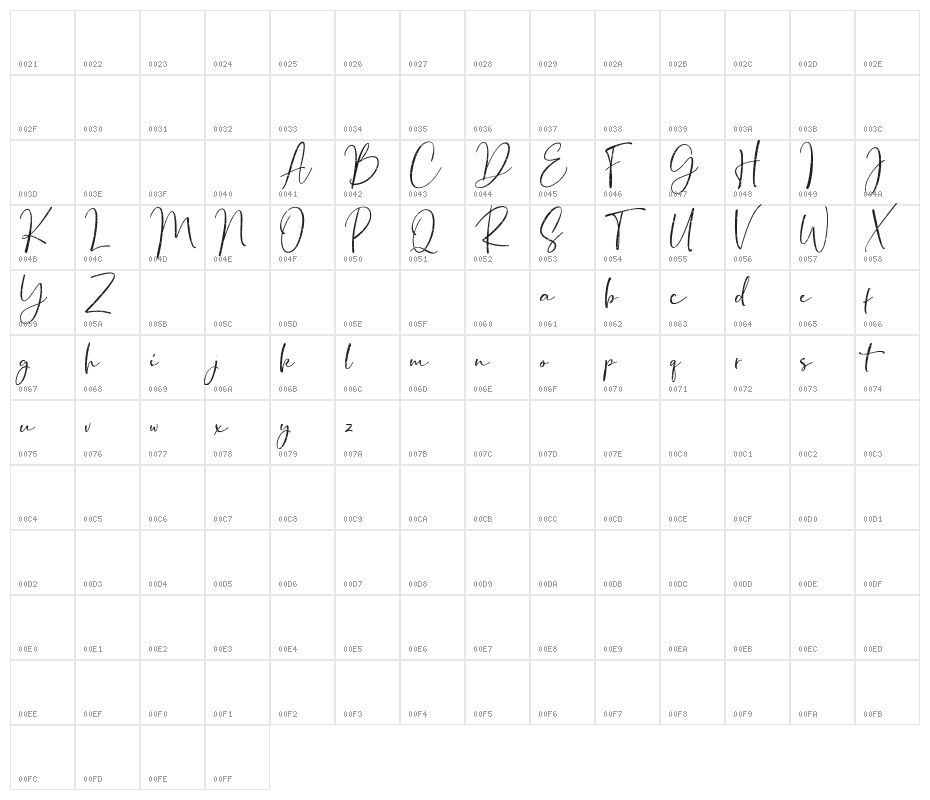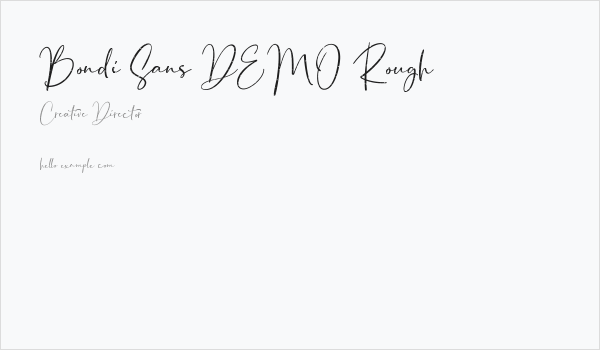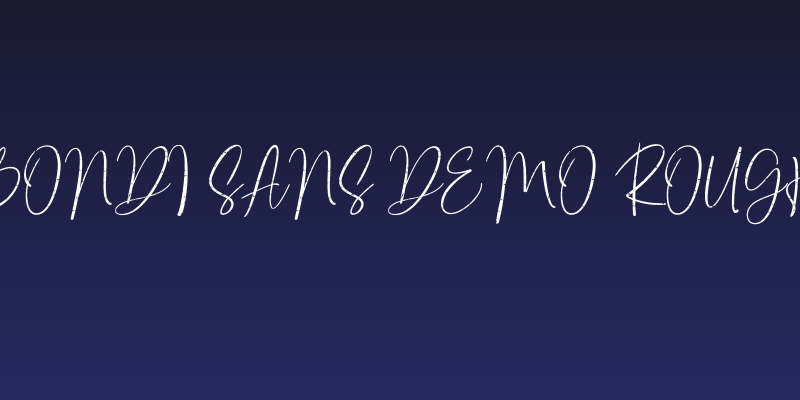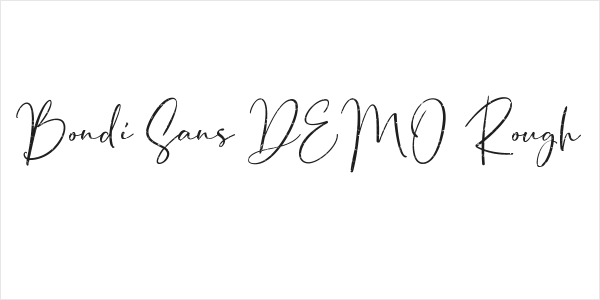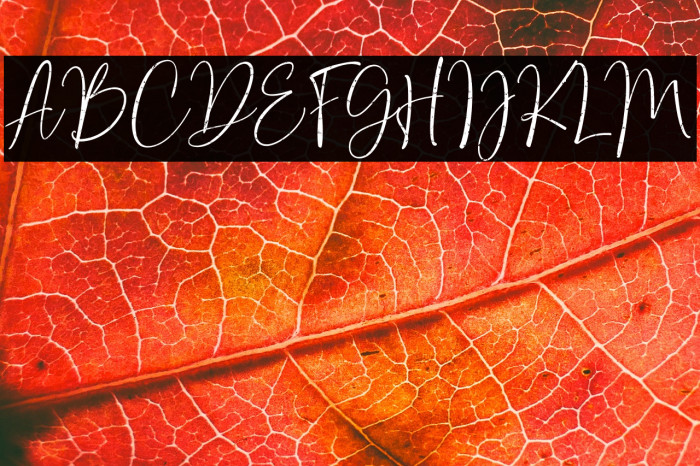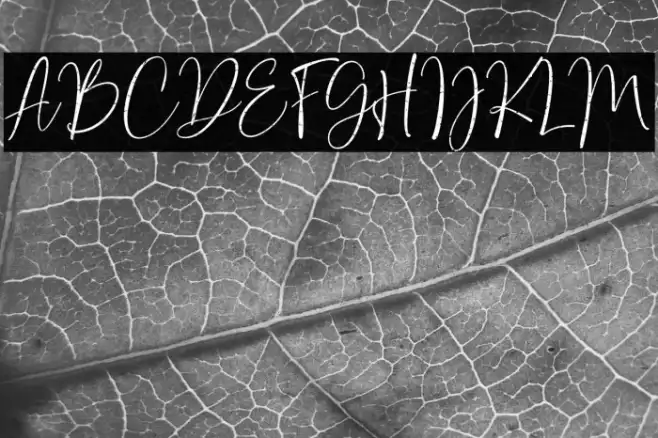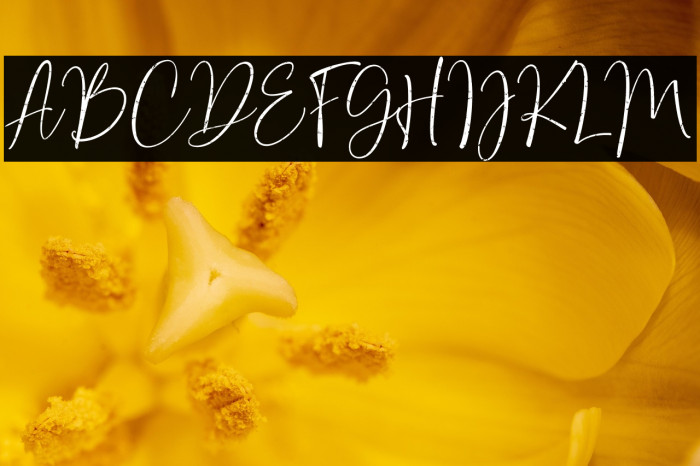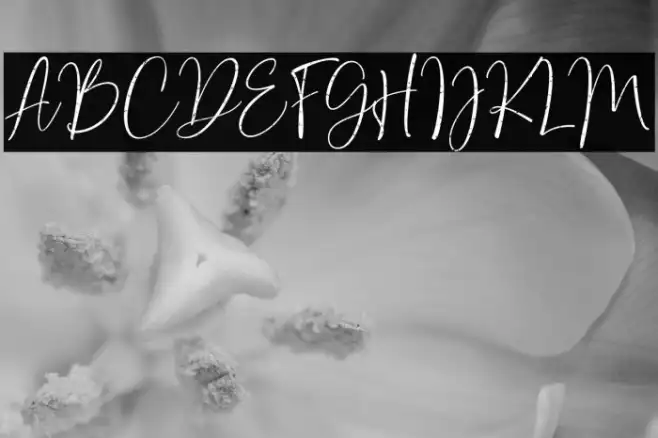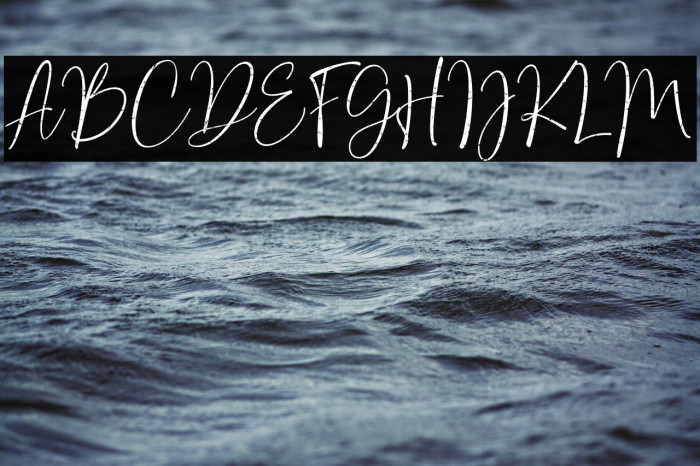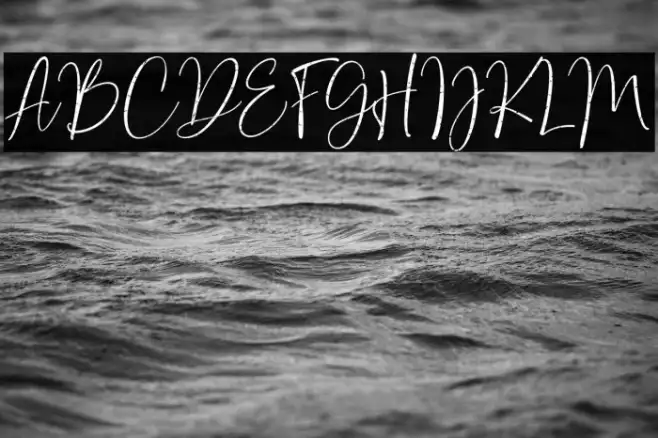
Bondi Sans DEMO Rough Font
Bondi Sans DEMO Rough Description
This font exhibits a dynamic and expressive handwritten style, characterized by its rough, textured appearance. The uppercase letters are tall and slightly condensed, with a playful, flowing script that gives a sense of movement and energy. The lowercase letters maintain this fluidity, with some characters featuring unique, elongated strokes that add to the font's charm. The overall design is casual yet artistic, making it suitable for creative projects. The rough texture adds a tactile quality, enhancing its visual appeal and making it stand out in various applications.